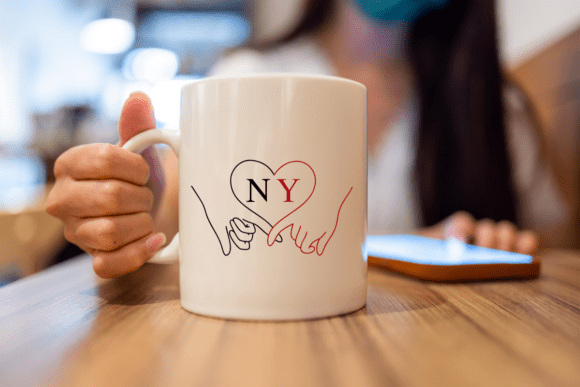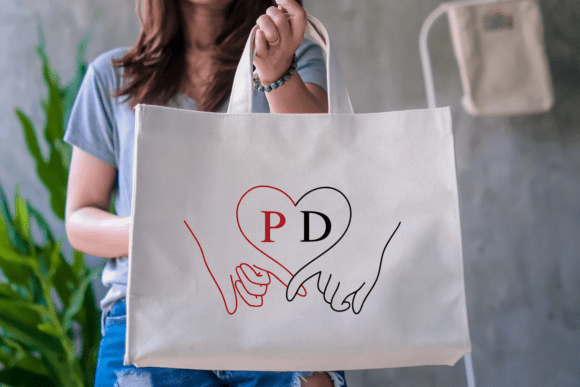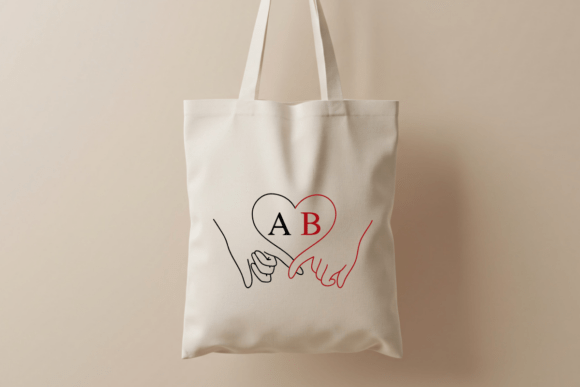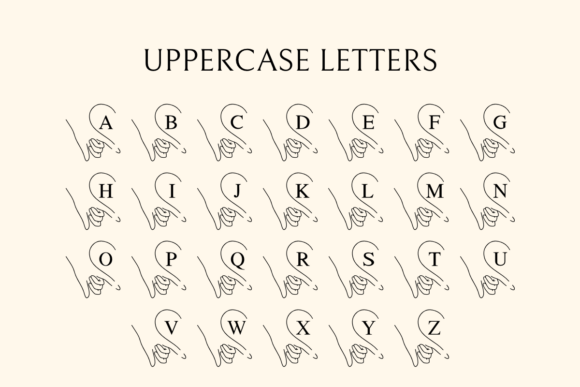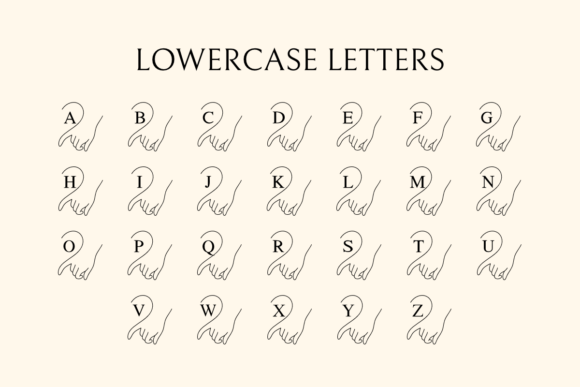
The Perfect Font for Your Creative Expression
Have you ever found yourself scribbling in a notebook, trying to capture the perfect phrase to express your emotions? You’re not alone. For many creatives, there’s something therapeutic about putting pen to paper. But what if you could take your notes to the next level with a font that’s as beautiful as it is functional?
Enter the Heartbound Hands Font, a gorgeous decorative font designed to elevate your written words. Whether you’re writing a diary entry, creating a greeting card, or designing a social media post, this font is the perfect companion for your creative endeavors. With its versatility and charm, Heartbound Hands Font is a valuable addition to any designer’s toolkit, offering endless possibilities for self-expression and artistic exploration.
Key Features of Heartbound Hands Font
- Unique Characteristics: Whimsical, handwritten style with a touch of elegance, perfect for titles, quotes, and creative projects
- Font Weight: Offers a range of font weights, from Light to Bold, allowing for flexibility in design
Heartbound Hands Font Review
As a designer, I was excited to dive into the Heartbound Hands font and see what it had to offer. Overall, I found it to be a solid choice for projects that need a touch of whimsy and charm.
- ✨ Unique, hand-drawn feel that adds a personal touch to designs
- ✨ Well-suited for titles, headings, and other display text
- ✨ Comes in a range of weights, making it versatile for different design needs
- ⚠️ Limited legibility at smaller font sizes, which can make it difficult to read in certain contexts
- ⚠️ Not ideal for body text, as it can be quite busy and overwhelming
- ⚠️ Some letters may be difficult to distinguish from one another, especially in certain weights
Overall, I think Heartbound Hands is a great choice for designers who want to add a touch of personality to their work. While it may have some limitations, its unique feel and versatility make it a solid addition to any design toolkit.
Practical Application Guide for Heartbound Hands Font
Use Heartbound Hands Font for creative and artistic projects, such as invitations, posters, and social media graphics.
Combine Heartbound Hands Font with other fonts to create a visually appealing and balanced design.
Alternatives to Heartbound Hands Font
Unleashing Creativity with Heartbound Hands Font
Create unique and romantic wedding invitations that capture the essence of love and commitment. Heartbound Hands Font adds a touch of elegance and sophistication to your design.
- Use Heartbound Hands Font for the main title, “Love Story,” in a bold and eye-catching font size.
Q: Does the Heartbound Hands Font include any special features or glyphs?
Yes, the Heartbound Hands Font includes a range of special features, including ligatures, swashes, and flourishes. The font also includes a set of punctuation and symbol glyphs designed to complement the script style. These features can be accessed using the font’s OpenType features or by using a font editor.